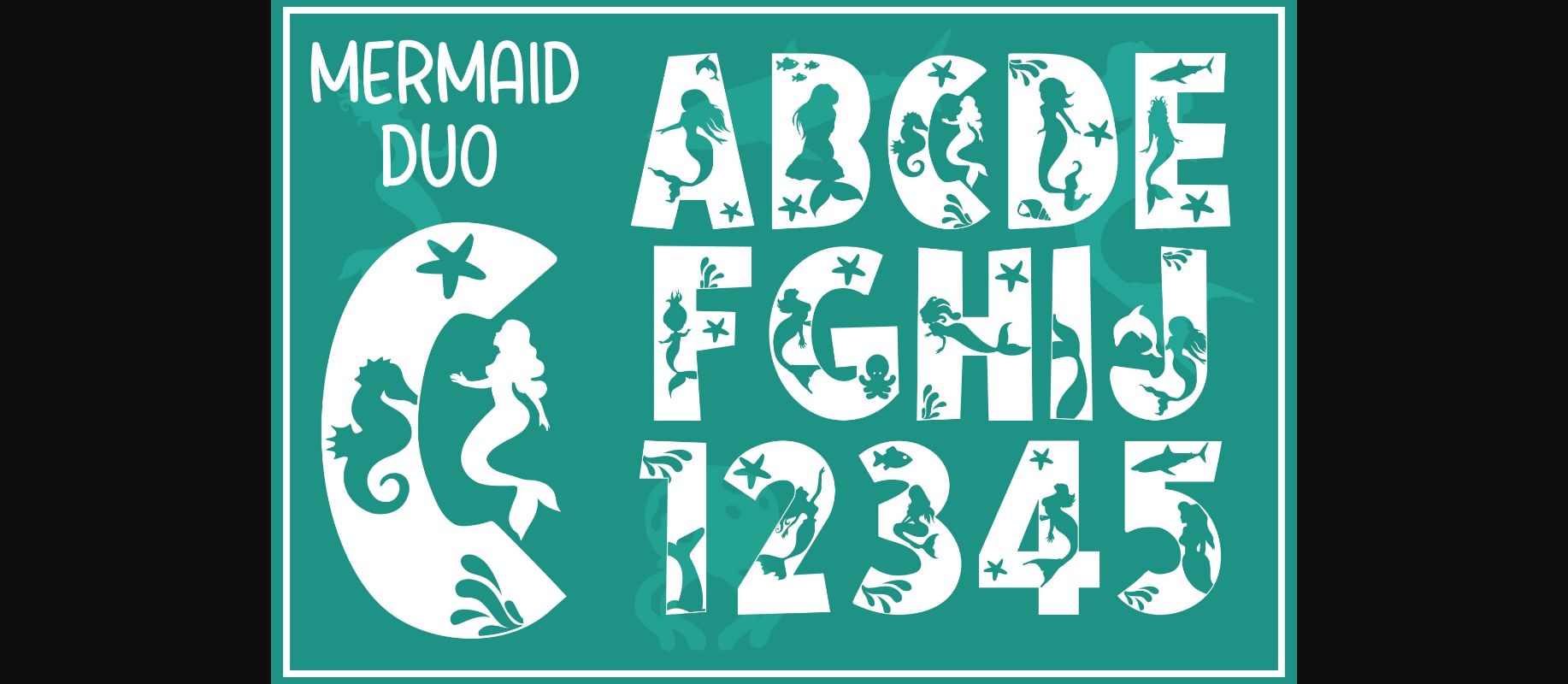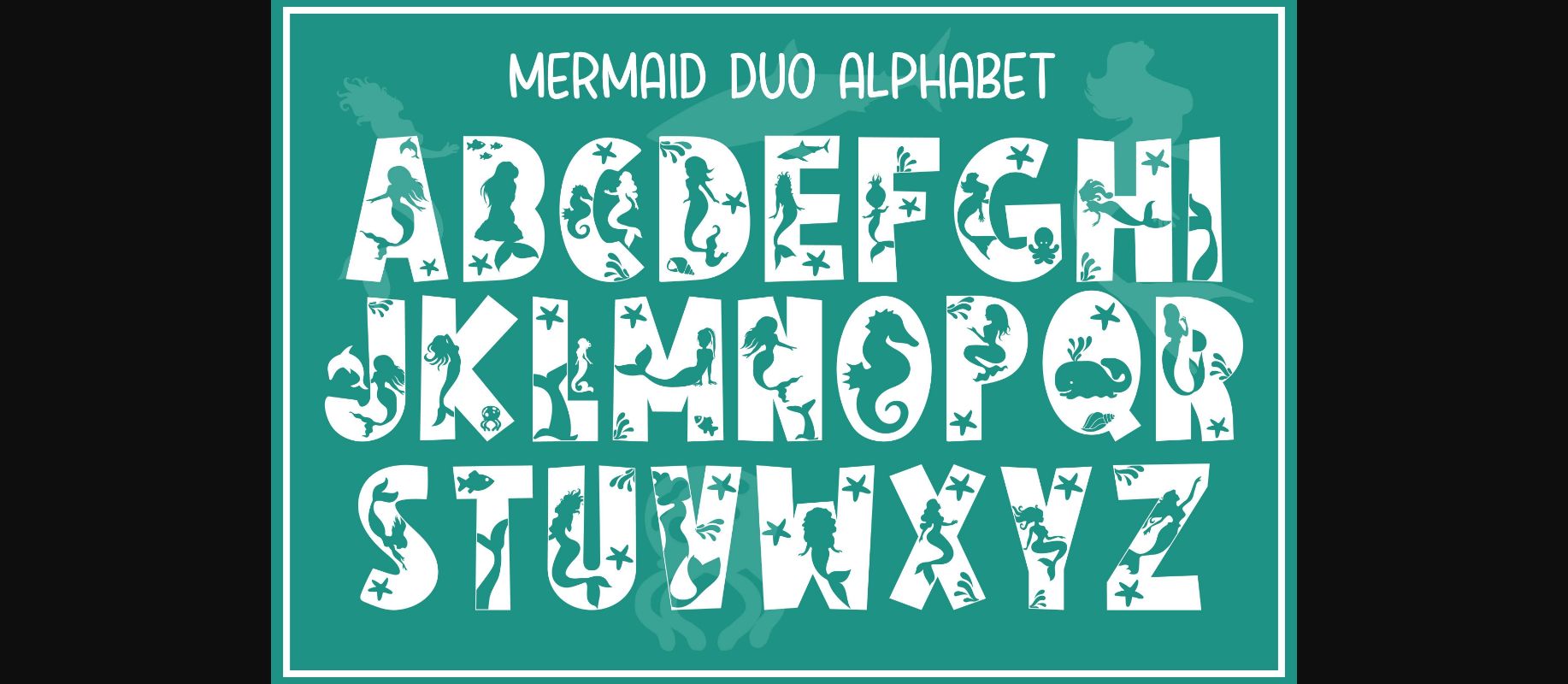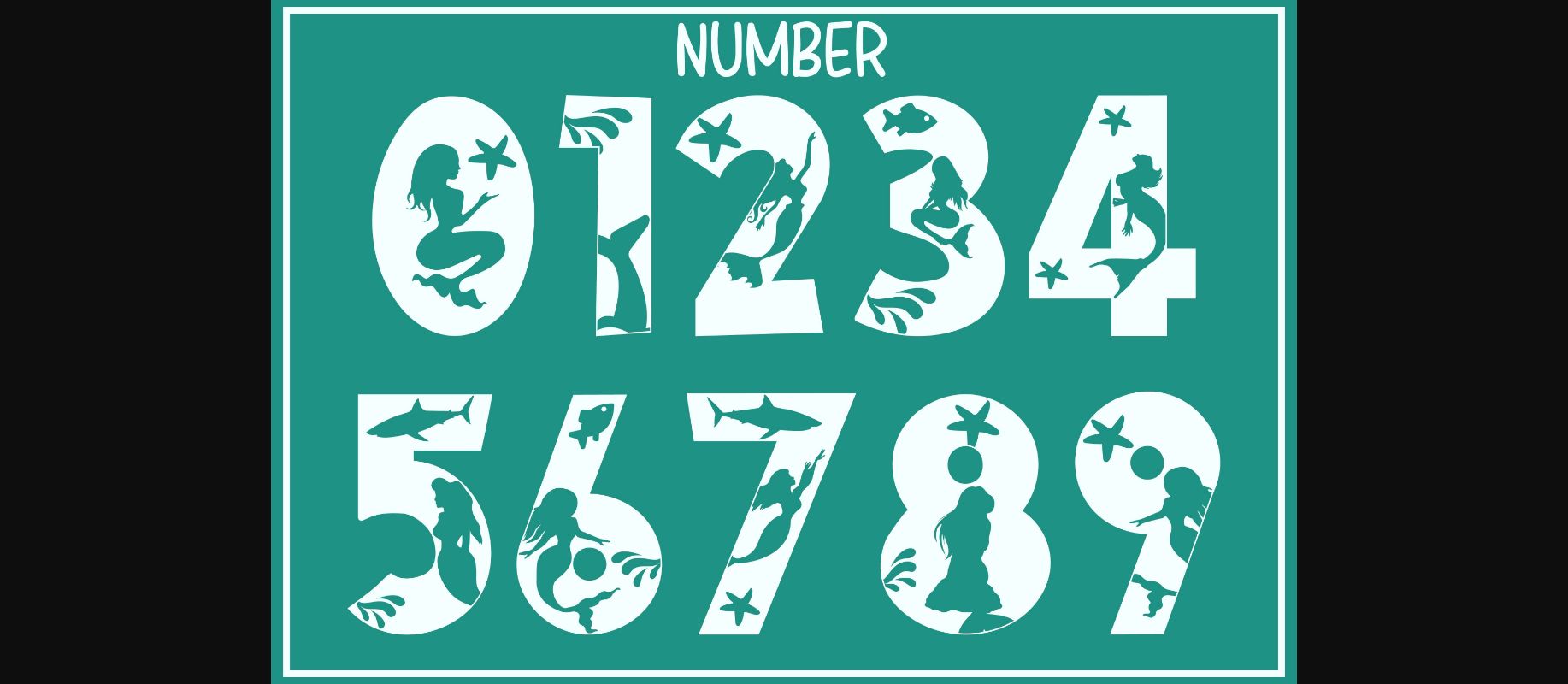
Mermaid Duo is a lovely and cute decorative font. With its cheerful personality, this font is ideal for adding a fun and charming touch to your craft, especially for those who need a beach and ocean vibe.